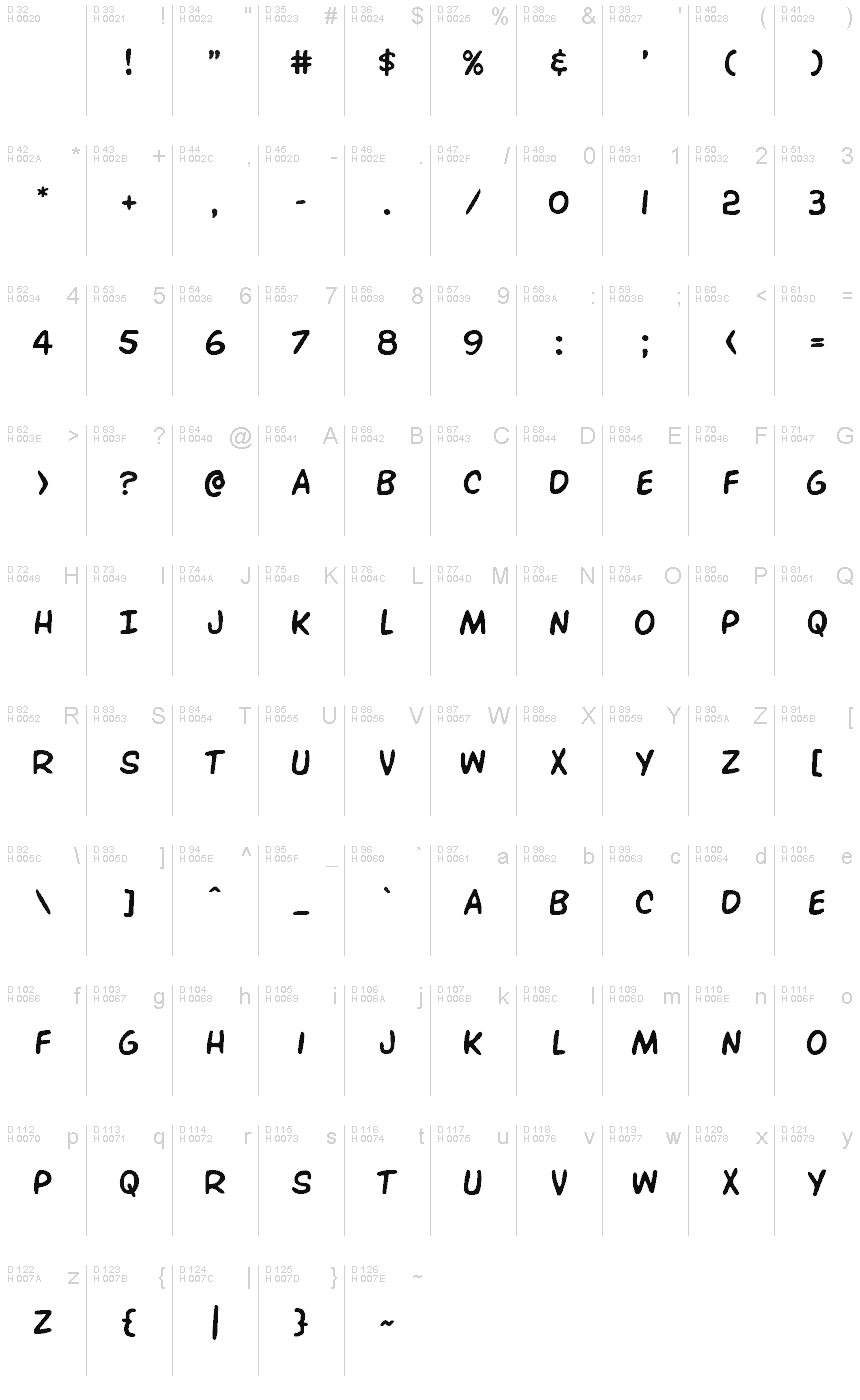
Overstreet Bible
Overstreet Bible is a captivating display font designed by Daniel Zadorozny. The comic-inspired style, with its distinctive bold strokes and playful curves, creates a whimsical and engaging aesthetic. The typeface's unique character shapes and exaggerated terminals lend it a sense of warmth and personality, making it an excellent choice for a wide range of applications, from eye-catching headlines to vibrant branding and packaging designs.
Its versatility allows it to seamlessly blend playfulness and sophistication, making it a versatile tool for designers seeking to add a touch of playful charm to their creations.